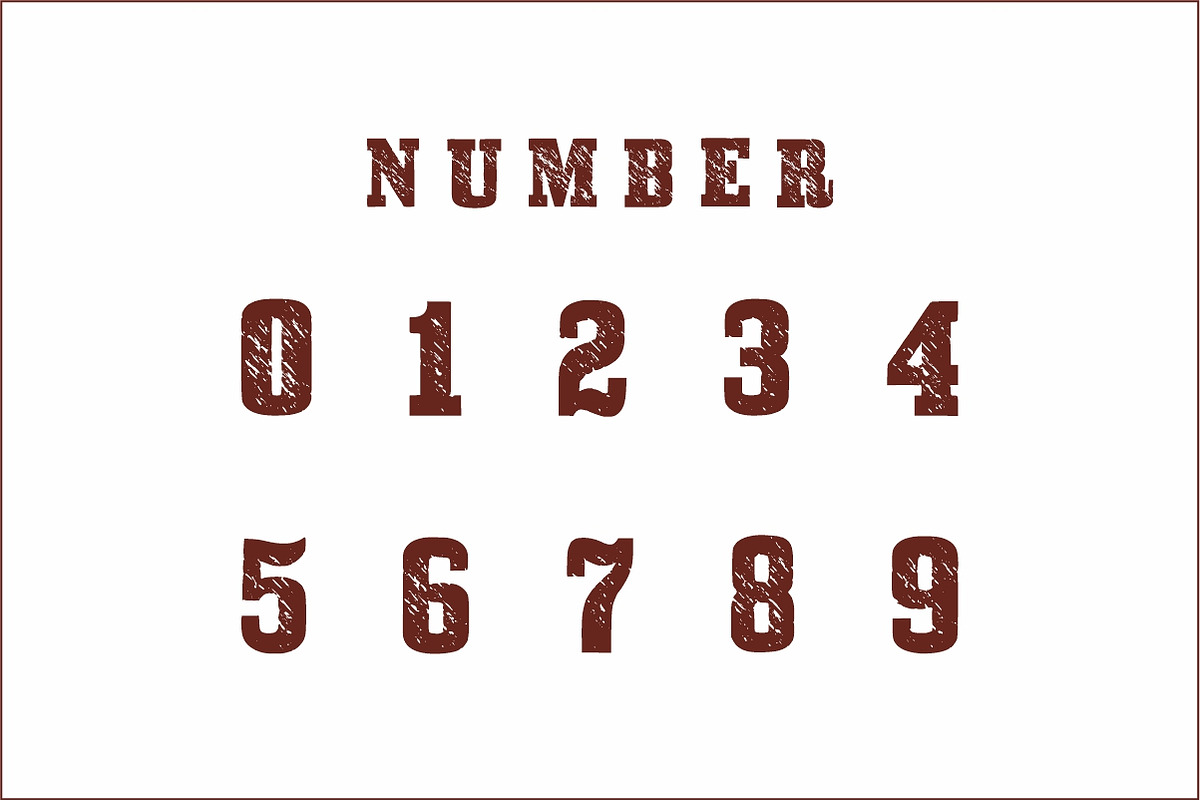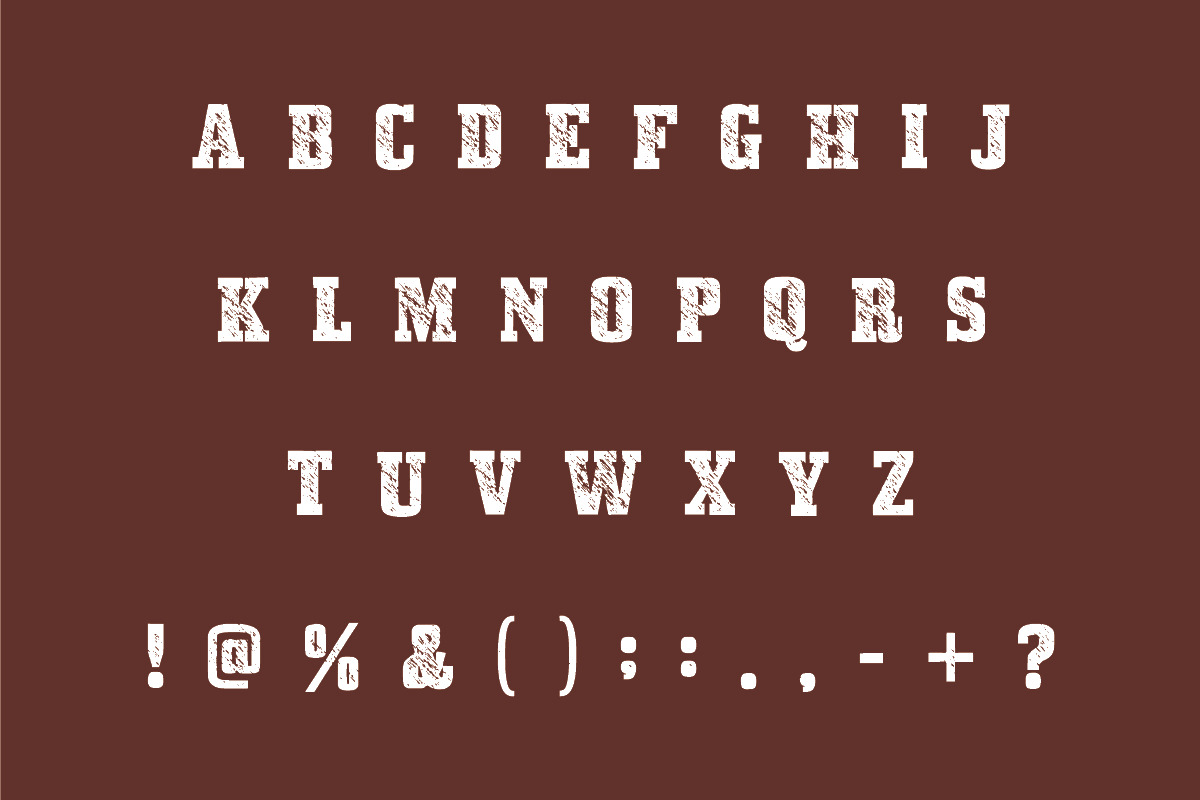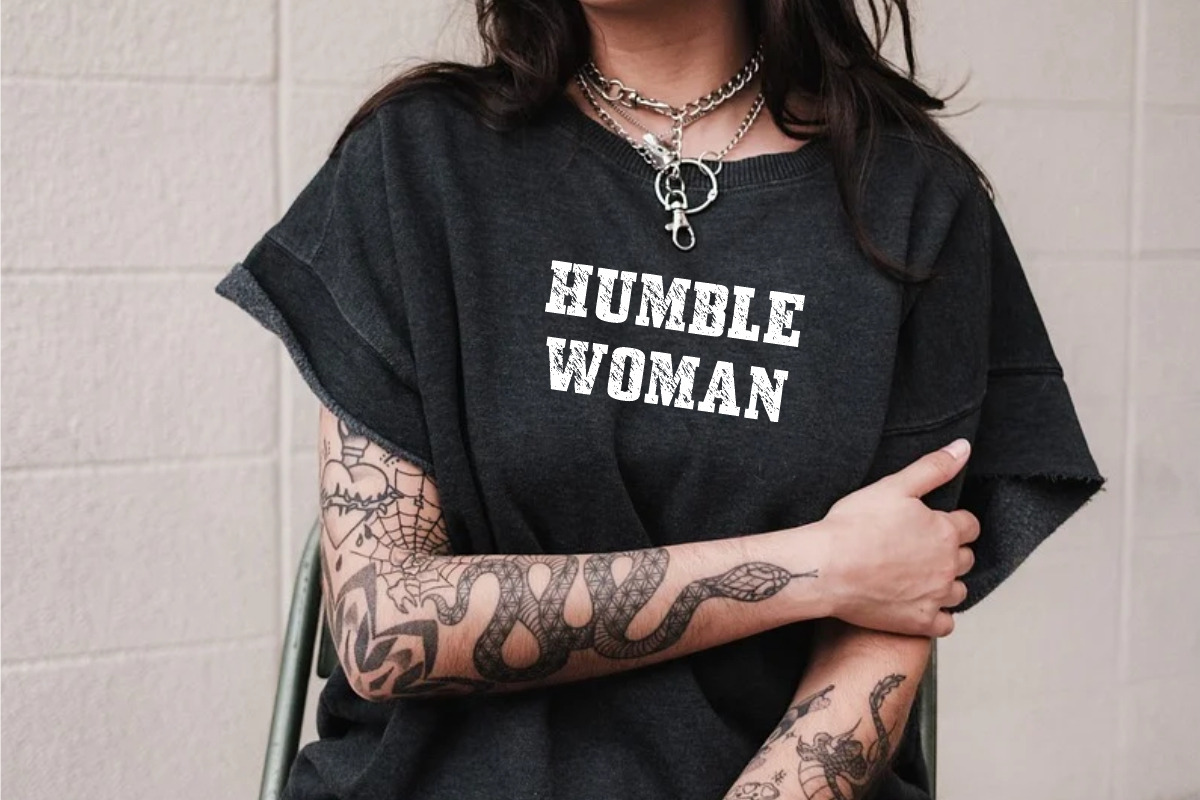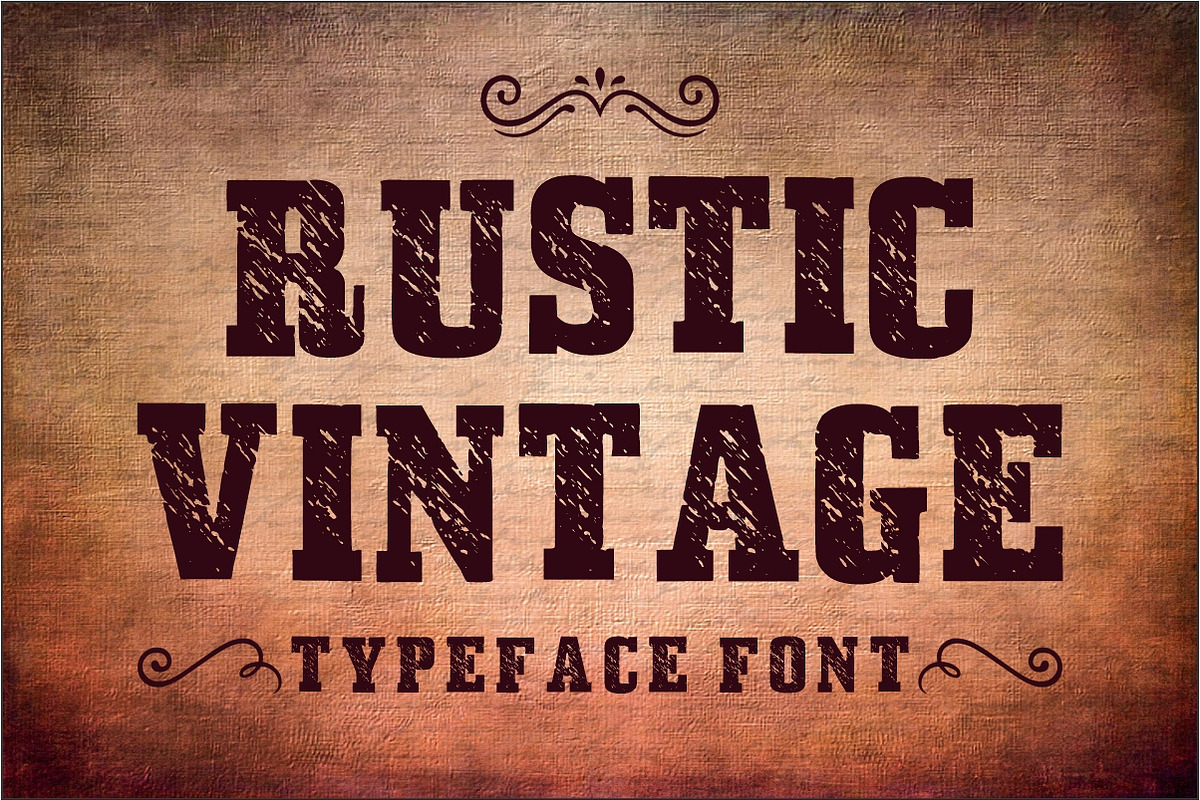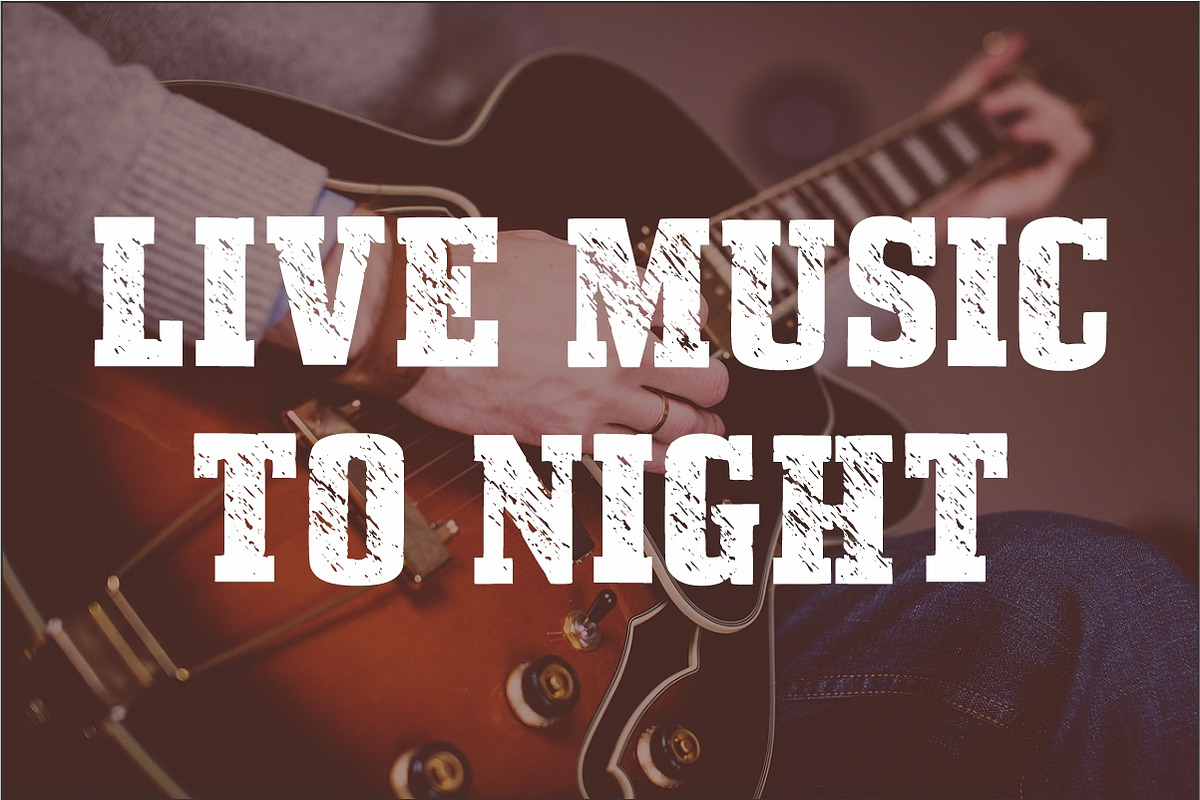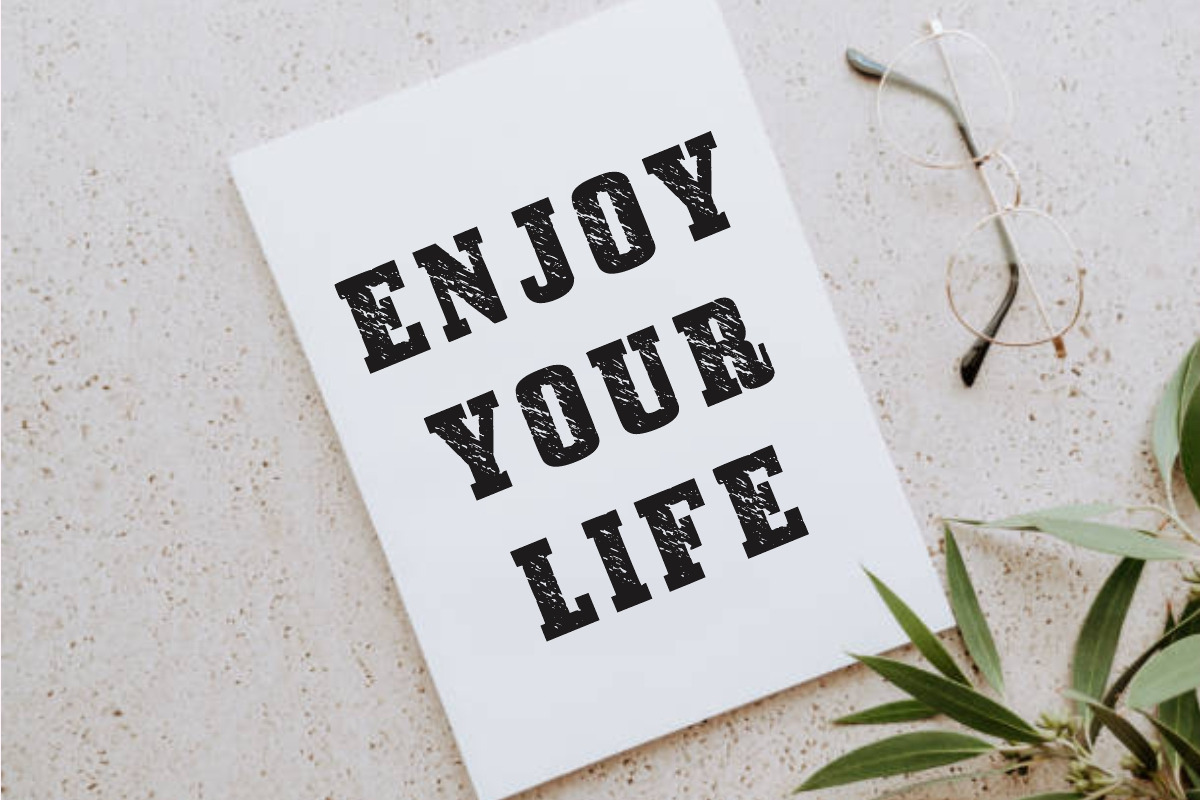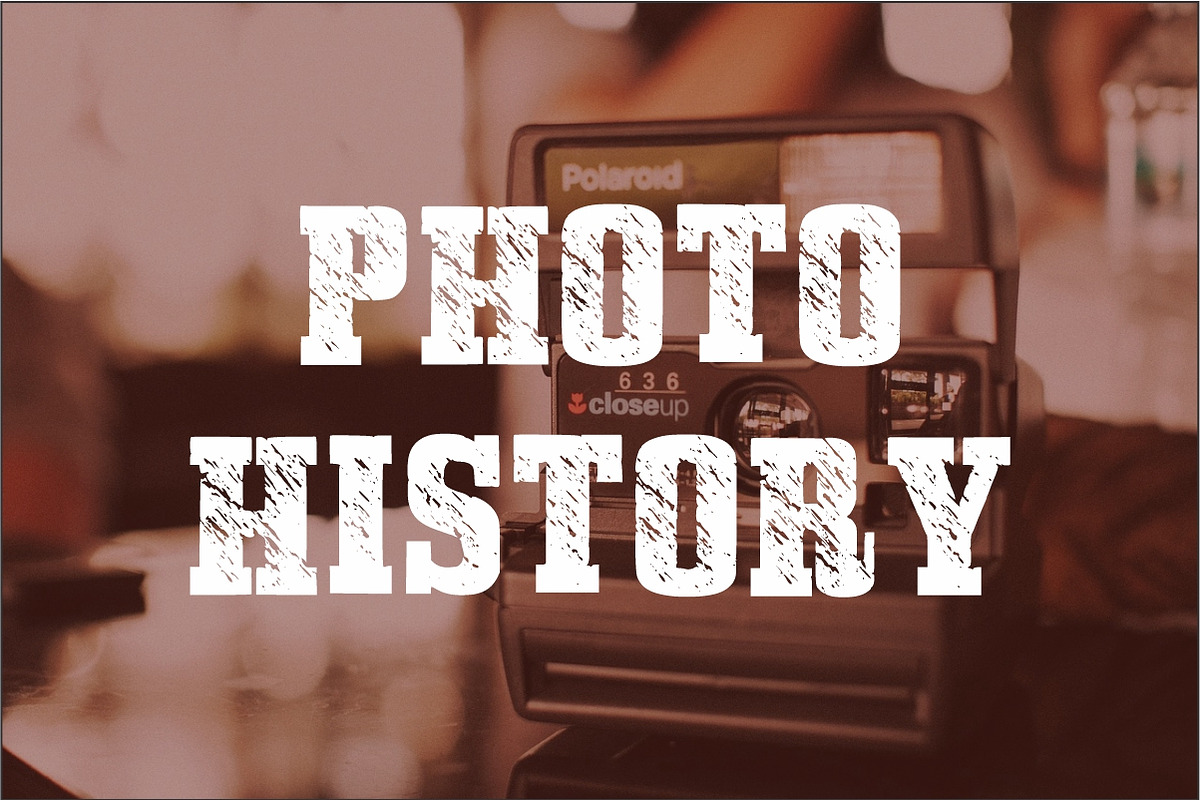
Rustic Vintage
Rustic Vintage is a powerful and authentic slab serif display font that evokes the raw spirit of the American West and old-world craftsmanship. Its bold, sturdy letterforms feature square, emphasised serifs and are heavily distressed with a natural, aged texture.
This typeface is perfect for craft beer labels, outdoor adventure branding, retro saloon signs, antique shop headers, and any project that needs a strong, durable, and genuinely rustic vintage aesthetic.